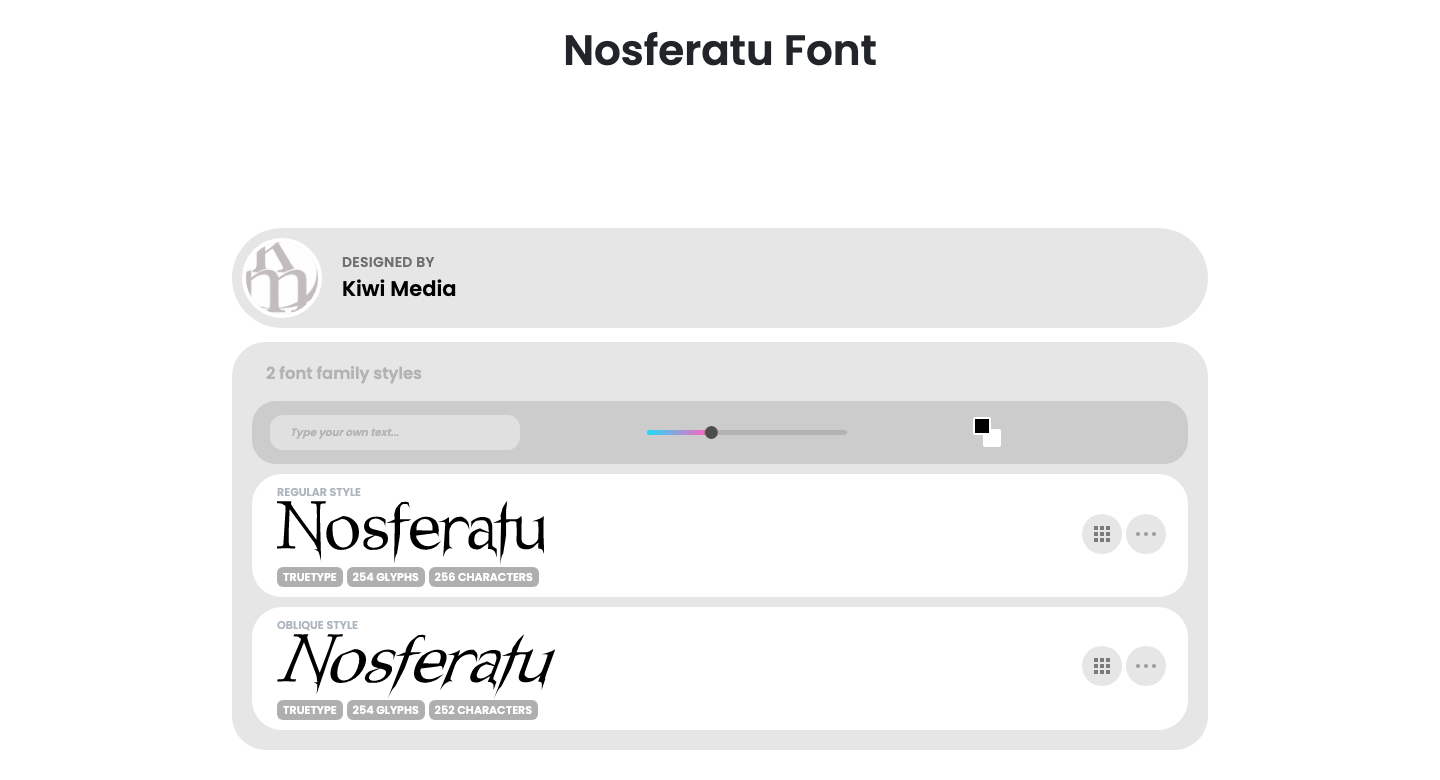
Knockout vs Nosferatu
Knockout and Nosferatu are both display typefaces sharing a bold foundation. Where Knockout leans condensed, sports, Nosferatu brings blackletter. Compare which suits your Display project.
Design overlap:40%
| Feature | Knockout | Nosferatu |
| Classification | display | display |
Where You'll See These Fonts
Knockout
- Sports magazine covers and headlines
- ESPN and broadcast sports graphics
- Event posters and promotional materials
- Editorial feature headlines with typographic impact
- Packaging and product branding with condensed type
Recommended: Knockout
- condensed, sports design character
- Suited for Sports and Headlines
Consider: Nosferatu
- blackletter design character
- Suited for Branding